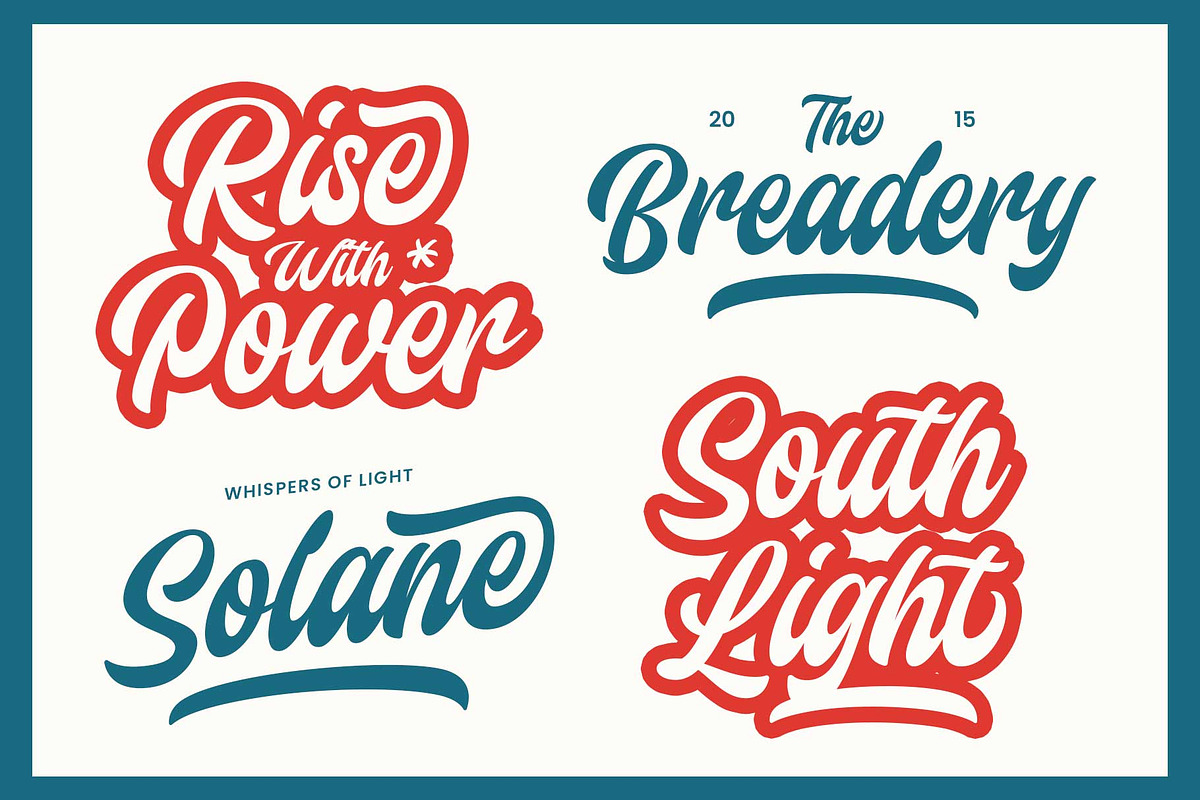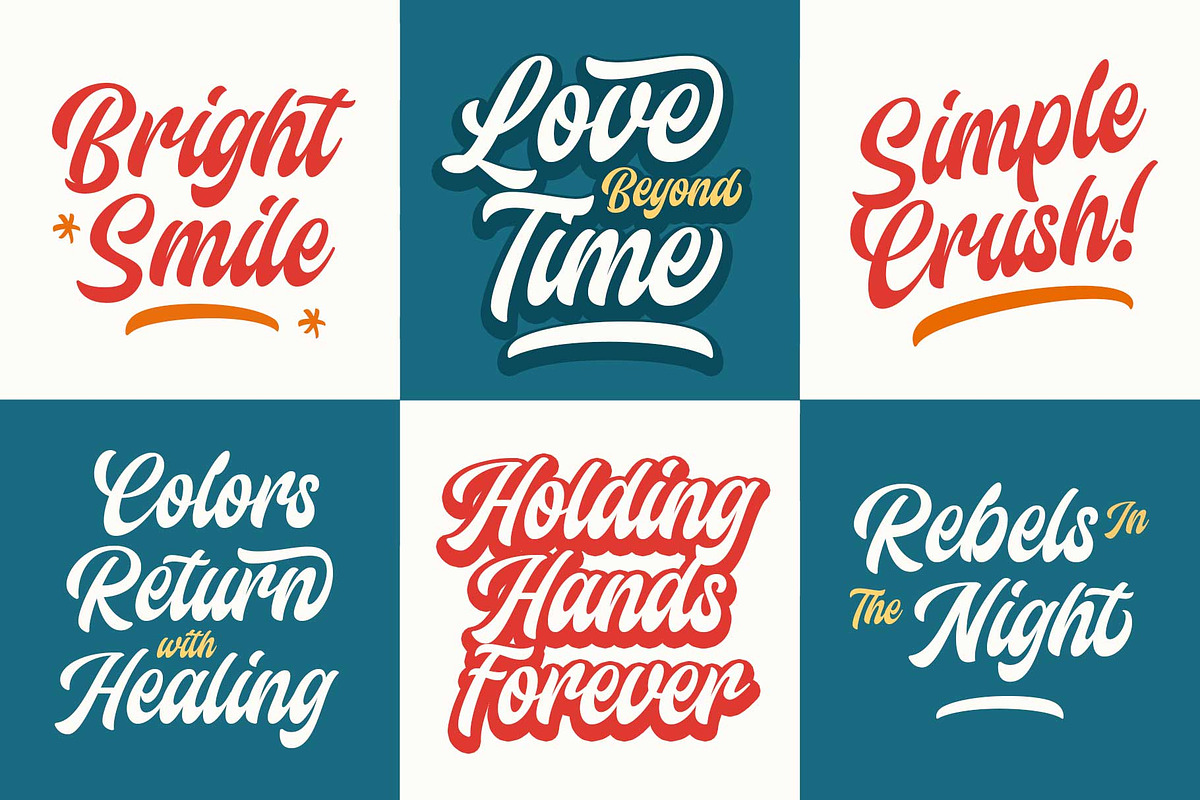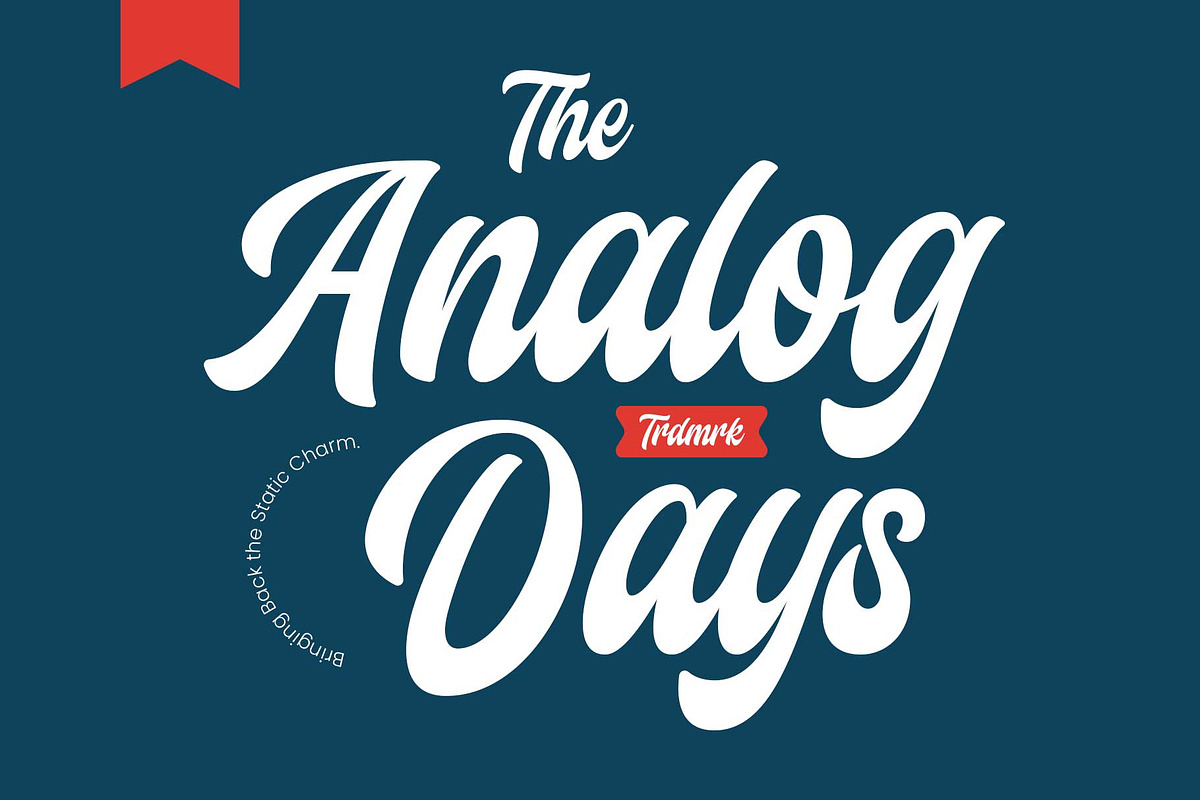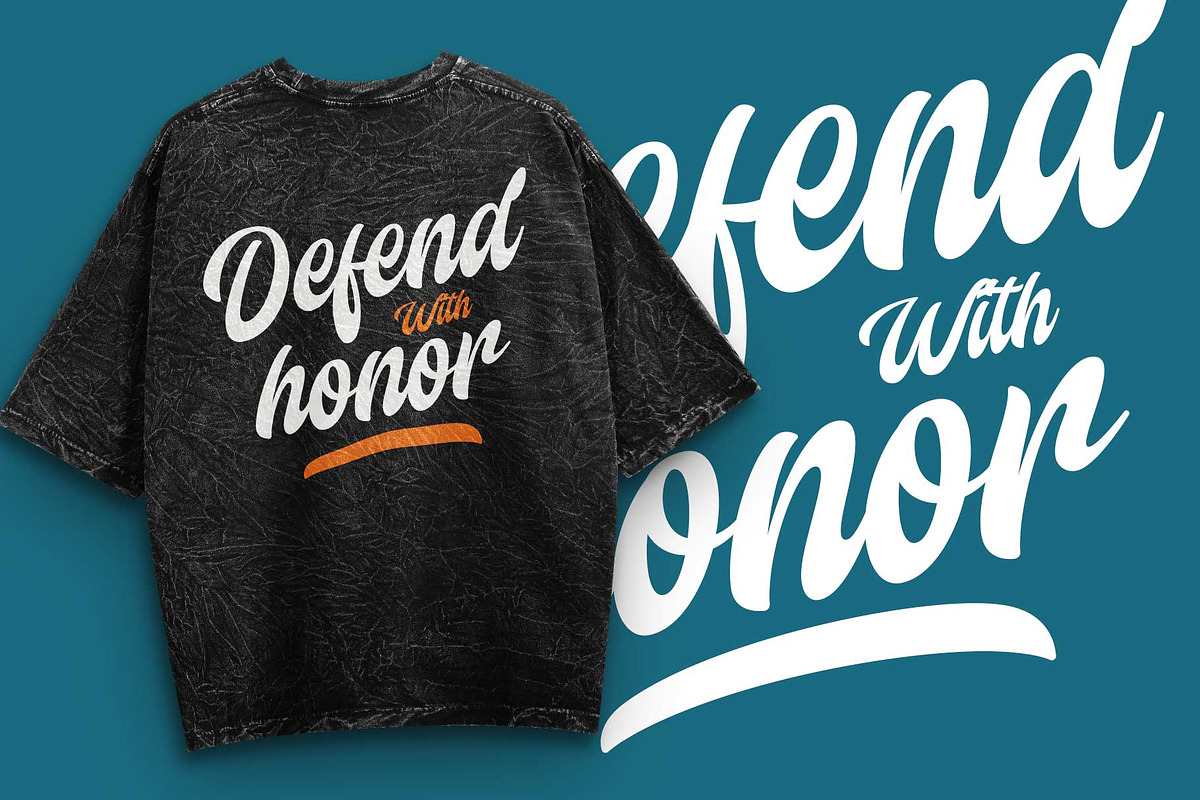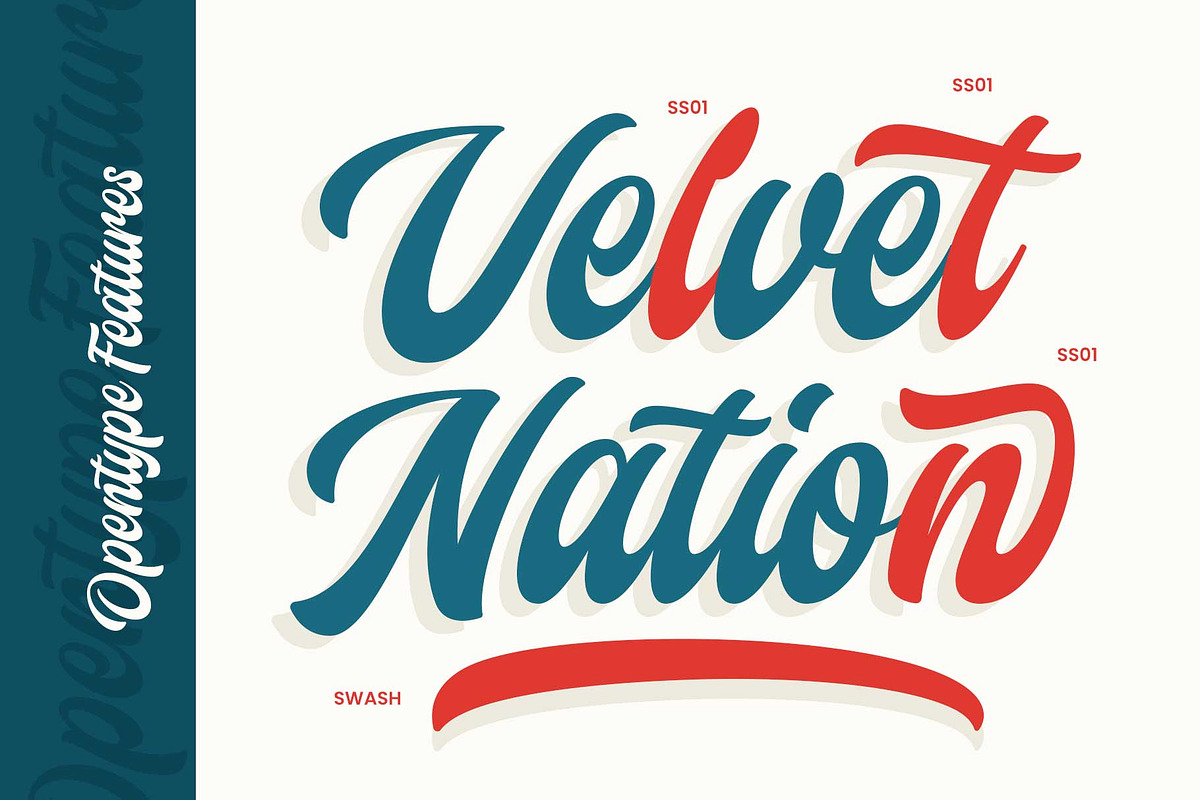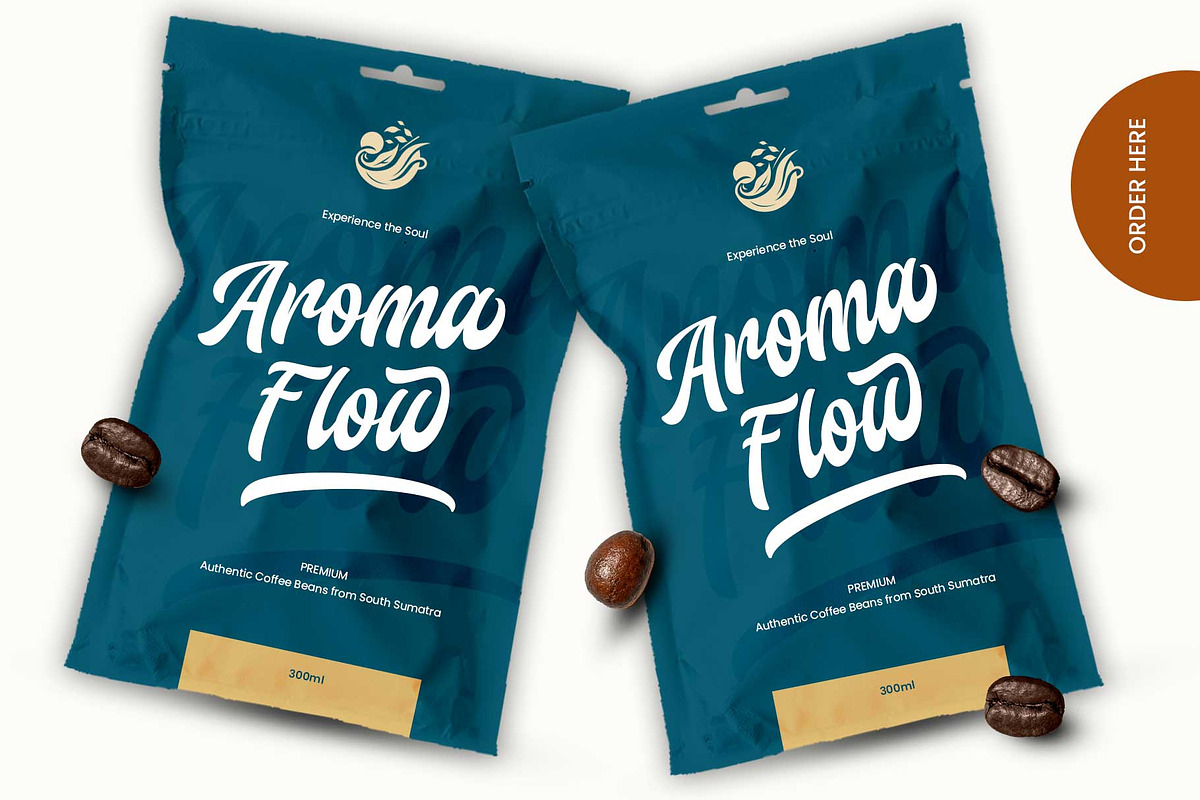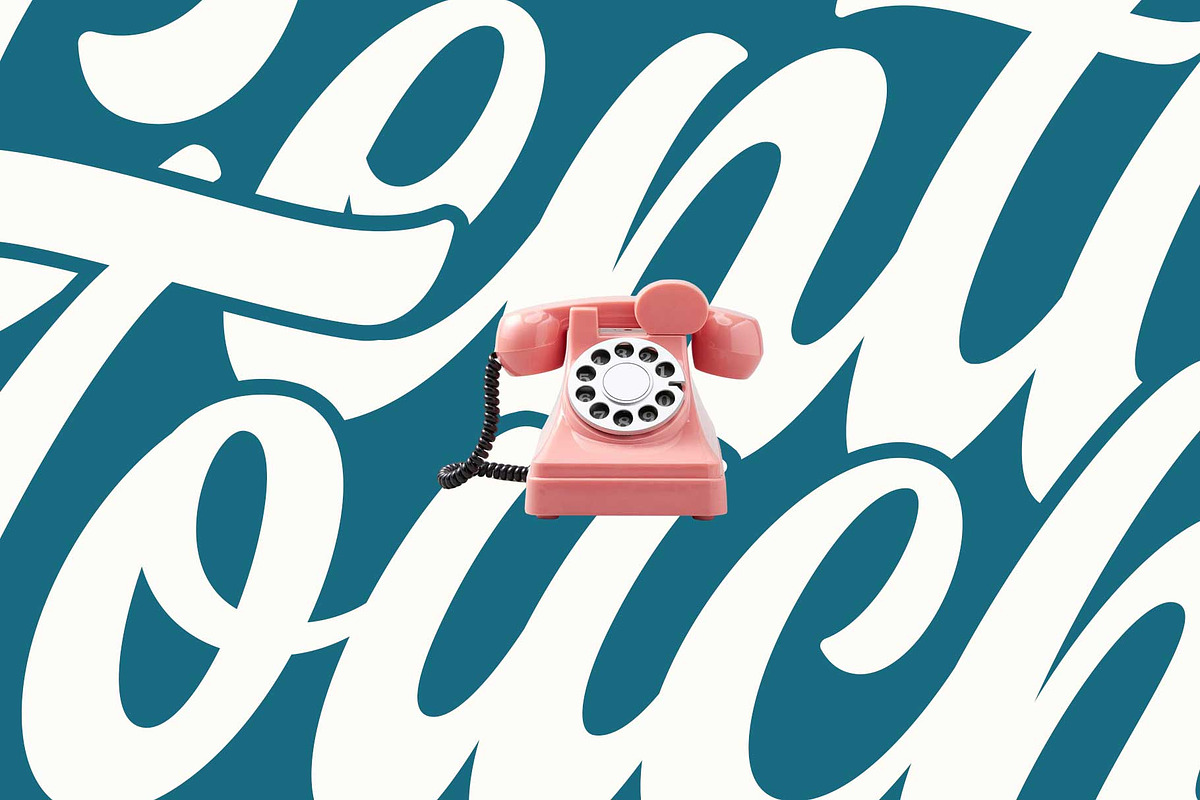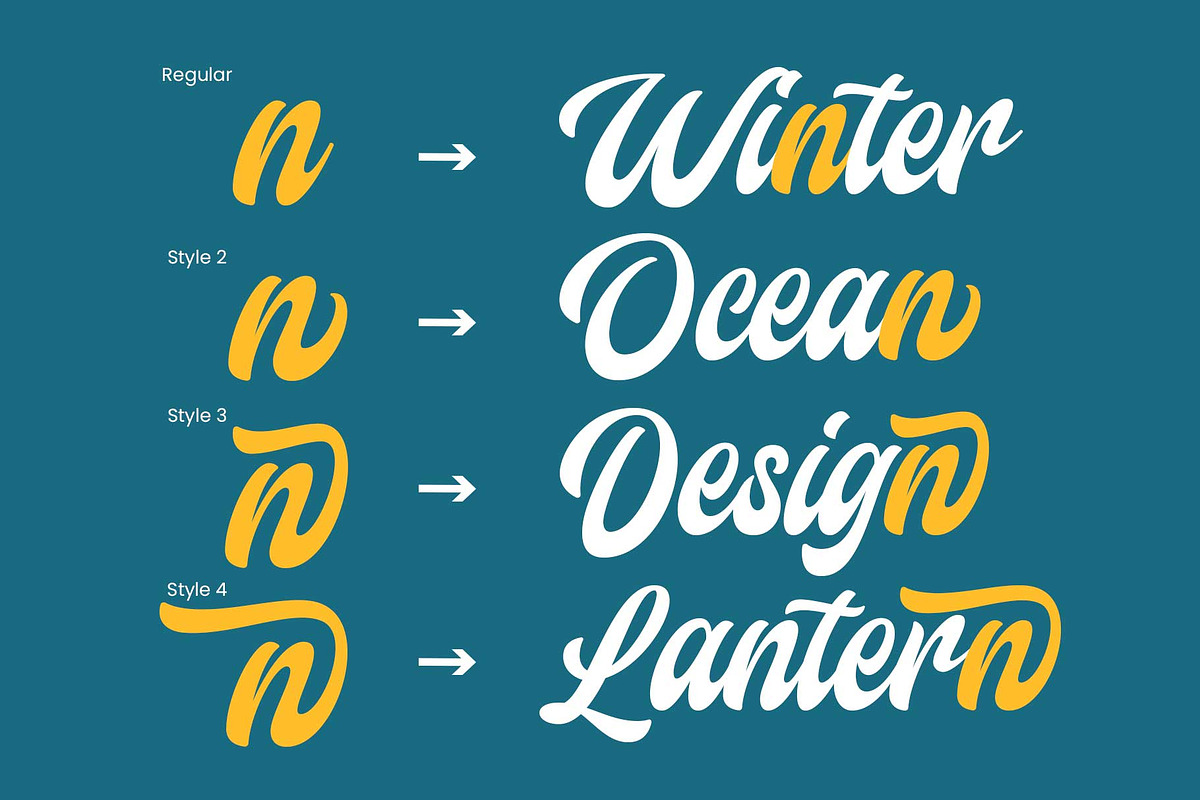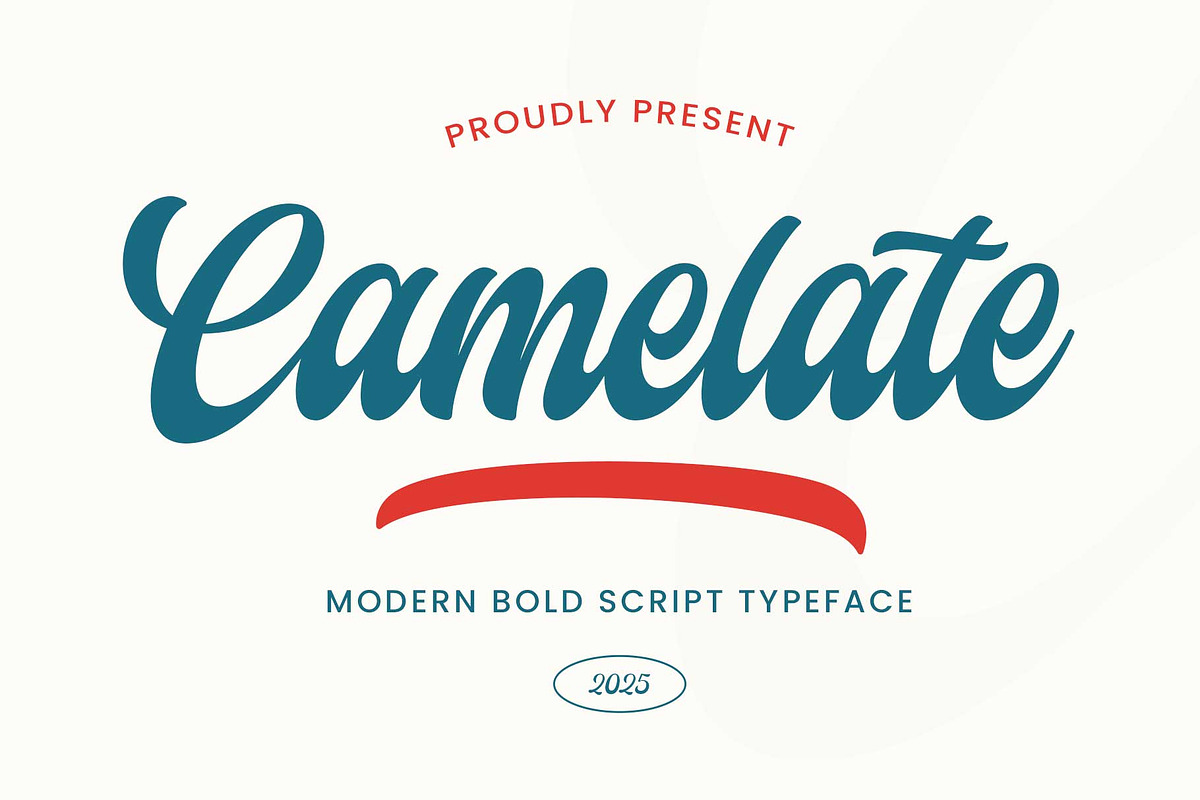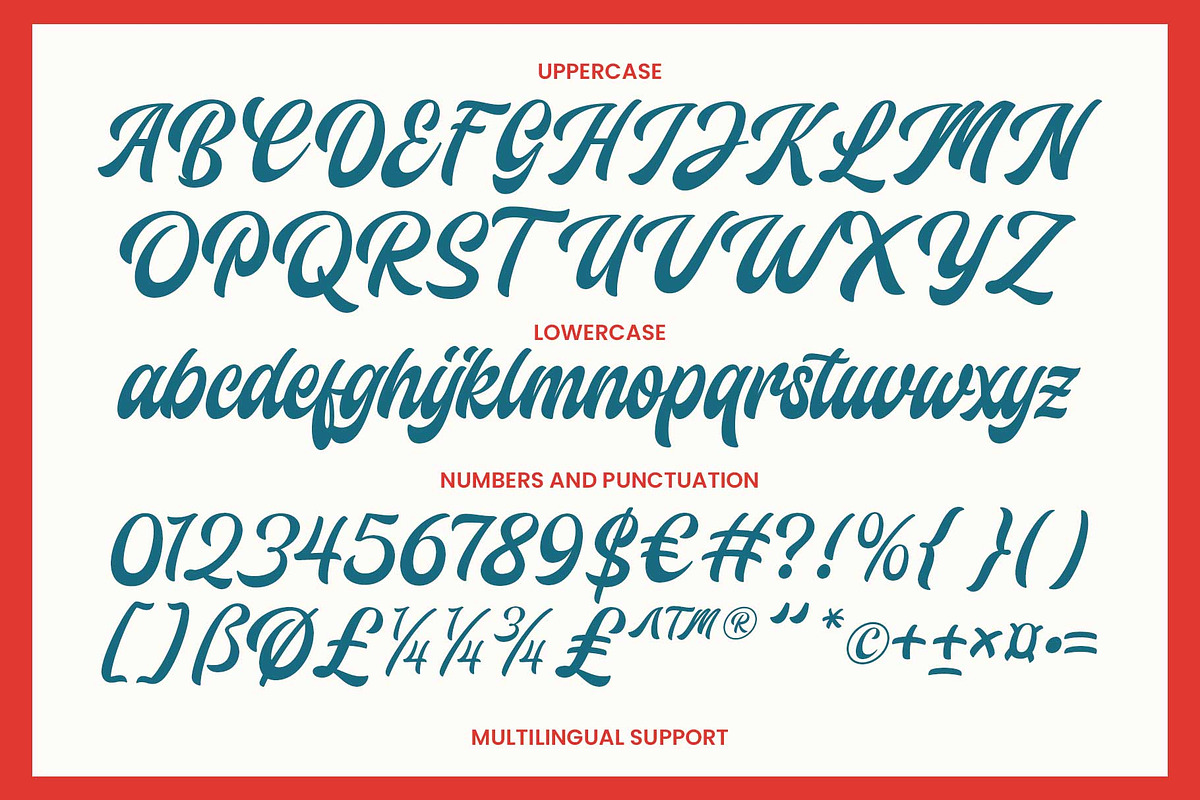
Camelate - Bold Script
Camelate is a bold script font inspired by vintage logos and classic sign painting. Carefully hand-drawn while maintaining calligraphic structure, it blends a timeless feel with a modern and distinctive look.
Designed as a display font, Camelate works perfectly for logos, logotypes, merchandise, sports themes, flags, banners, stickers, labels, posters, and more. It also comes with stylistic alternates to add extra flair to your typography.